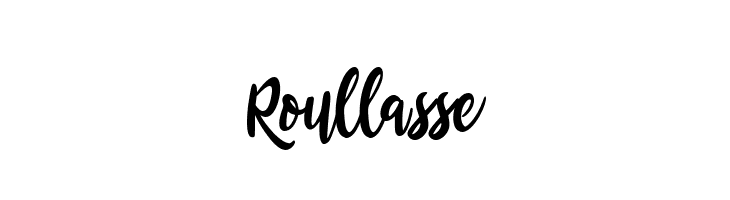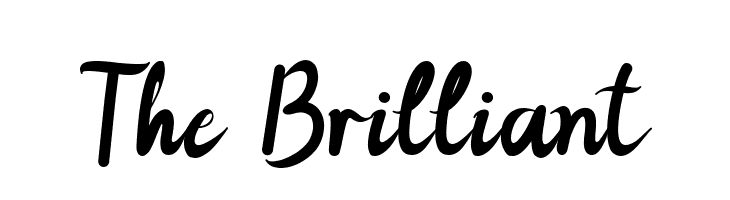
Whimsical Christmas-themed dingbat illustrations.
A playful, handwritten font with tall, narrow letterforms and smooth strokes.
A graceful, italic script font with a handwritten, calligraphic feel.
A decorative and flowing font with artistic letterforms.
A fluid, cursive font with elegant, signature-like strokes.
A playful, handwritten font with thin, irregular strokes and a whimsical style.
A playful, handwritten font with a casual and elegant style.
A playful and casual script font with smooth, flowing letters.
A bold, expressive brush-style font with a dynamic, hand-painted look.
A bold, geometric display font with thick, block-like letterforms.
设计师偏爱 Xmas Doods 2, So Much Love, Blissfuly Magnotia DEMO VERSION Italic, Dutina and Sachlette Signature,因为其造型干净、适用范围广—— 从品牌识别到落地页、海报都能胜任。